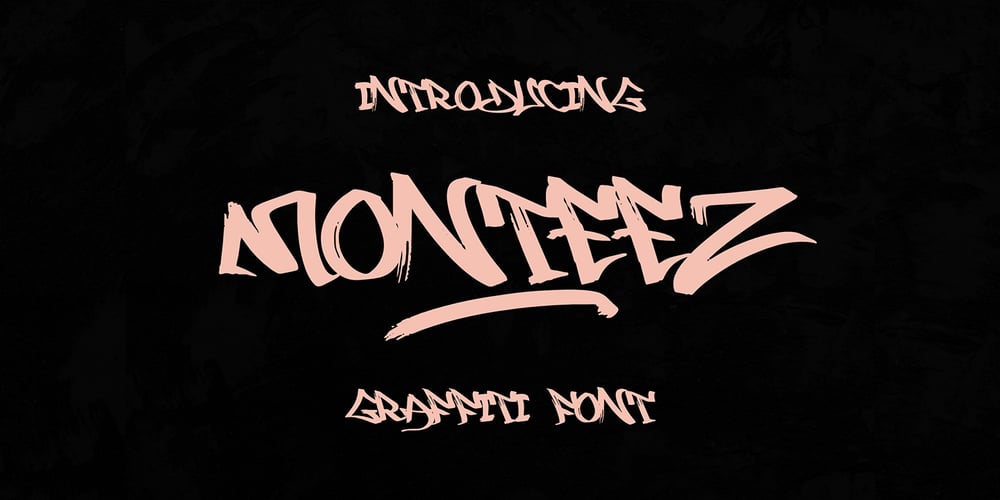
Monteez Graffiti Font Family was designed by Sipanji and published by Sipanji21. Monteez Graffiti contains 1 styles and family package options. “Monteez” is a brush graffiti font characterized by its monoline style. Brush graffiti fonts typically emulate the look of hand-painted lettering created with brush strokes, resulting in a raw and expressive aesthetic. The monoline style maintains consistent stroke thickness throughout the characters, giving the font a uniform and cohesive appearance.With its brush-inspired design and monoline style, “Monteez” offers a blend of spontaneity and consistency, making it suitable for a variety of design projects. Whether used for urban-themed designs, street art, posters, or branding materials, this font adds a touch of authenticity and creativity to the typography, enhancing the overall visual impact of the composition.